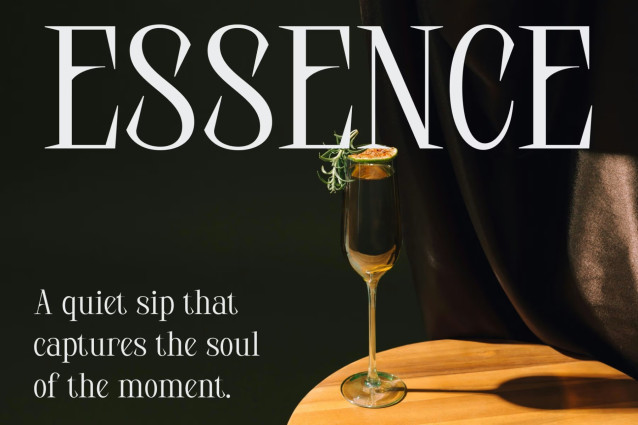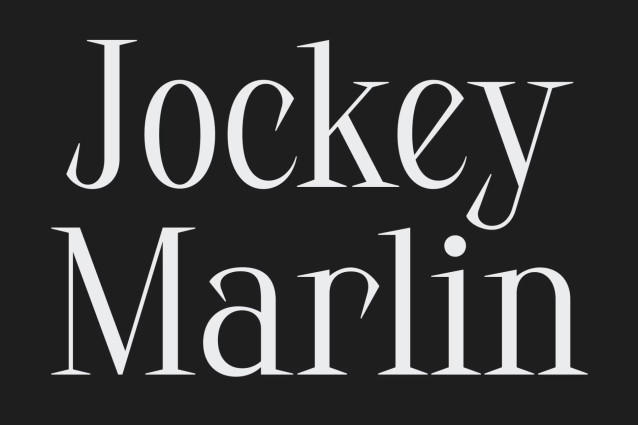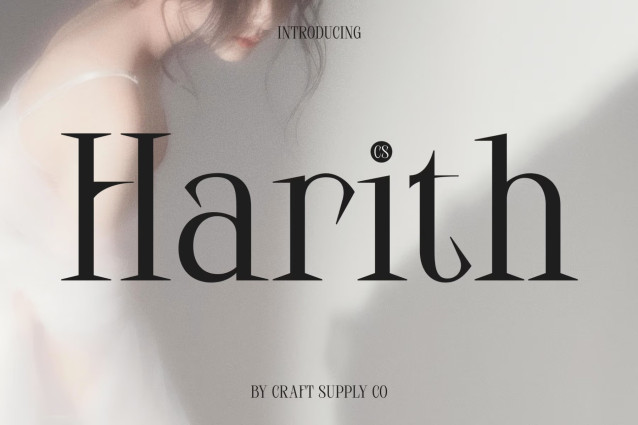
CS Harith – Modern Serif Font
CS Harith – Modern Serif with Sharp Contemporary Elegance
Modern Serif with Confident Contemporary Style
This is a modern serif font designed to express confidence, sophistication, and contemporary luxury. With its refined structure and sharp-edged detailing, this typeface creates a bold visual presence that feels elegant, modern, and highly distinctive. It is crafted for designers who want typography that communicates strength while maintaining a polished and premium aesthetic.
Sharp Details with Luxurious Character
The defining feature of this font lies in its sharp edges and clean serif construction. These precise details add tension and refinement to every letterform, creating a sleek and confident appearance. The combination of elegance and bold geometry gives the font a luxurious personality that stands out beautifully in modern layouts.
Contemporary Design with Strong Presence
This font balances timeless serif sophistication with fresh contemporary styling, making it adaptable across various creative directions. Its structured forms ensure excellent readability while maintaining a stylish and fashion-forward tone. The result is a typeface that feels professional, artistic, and visually captivating.